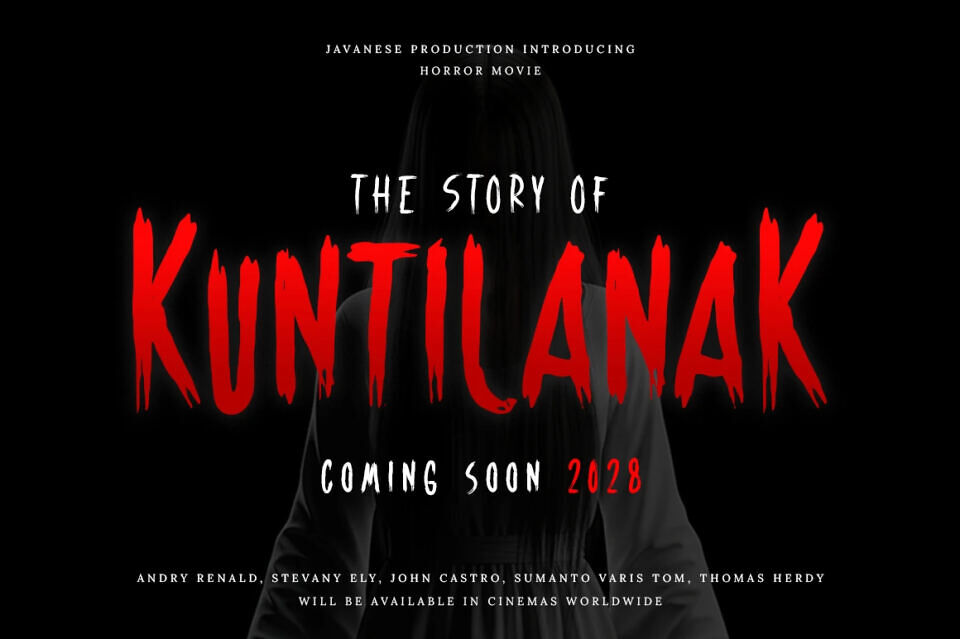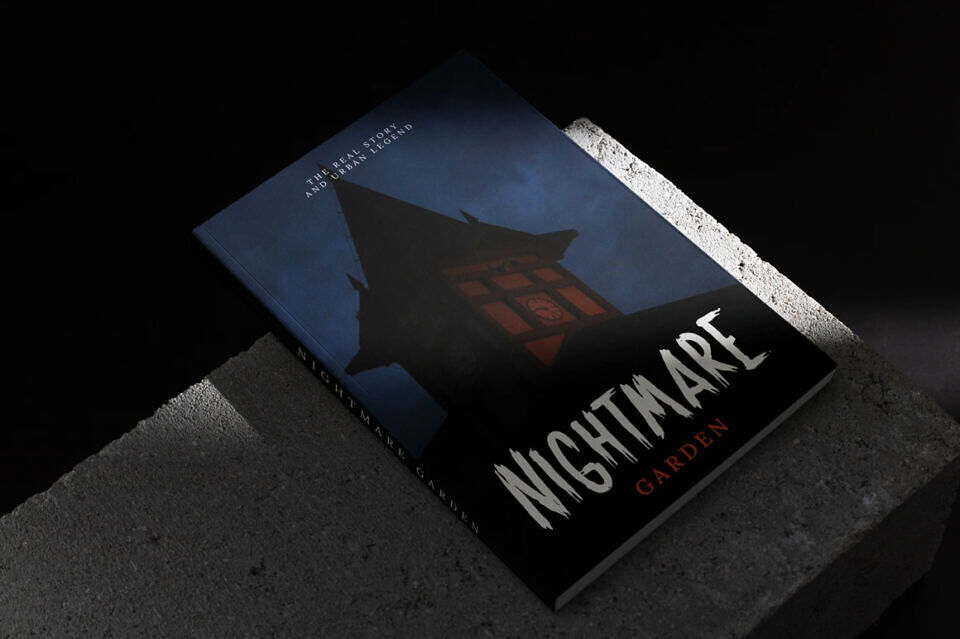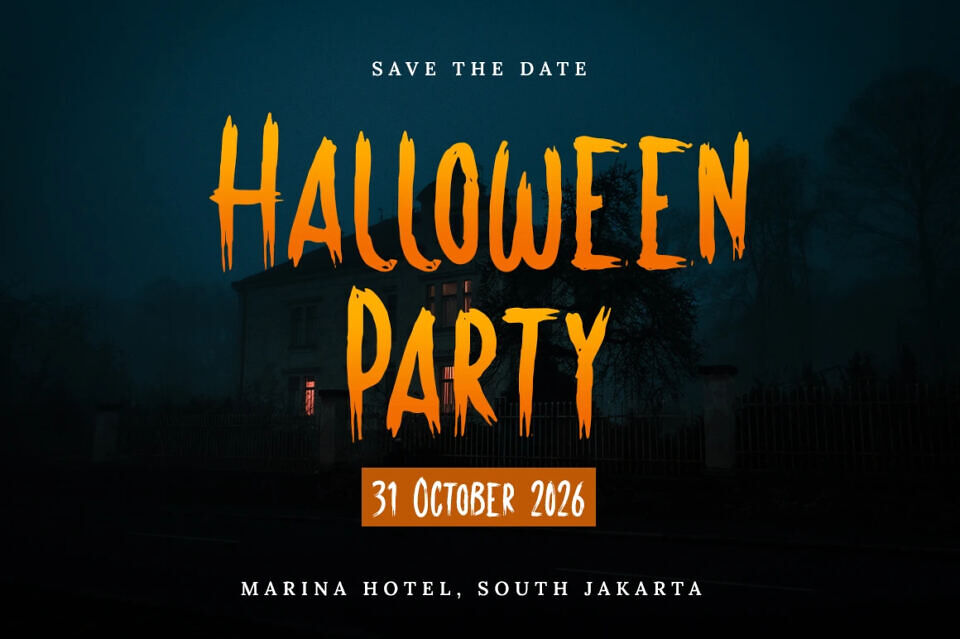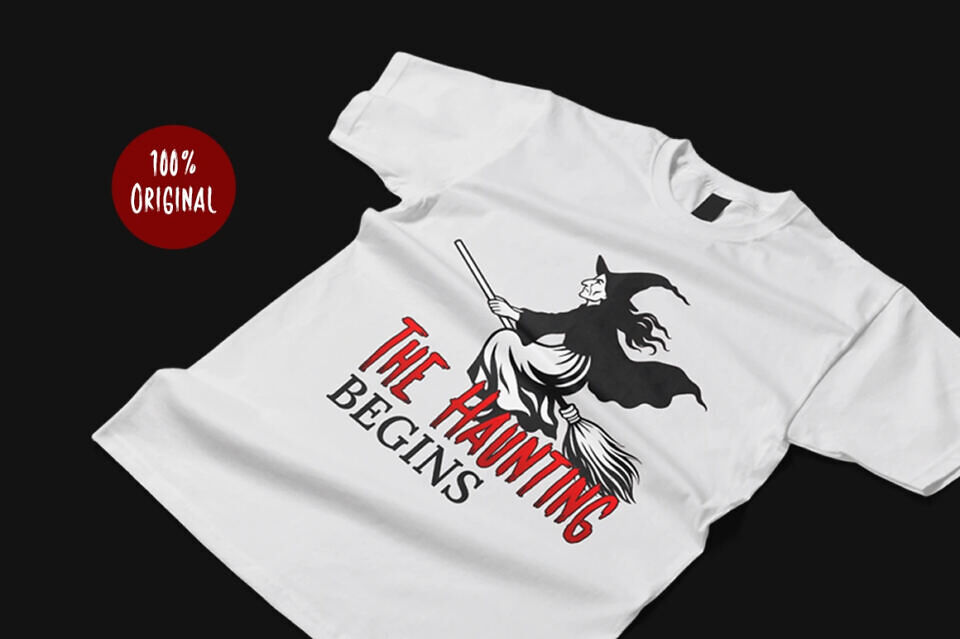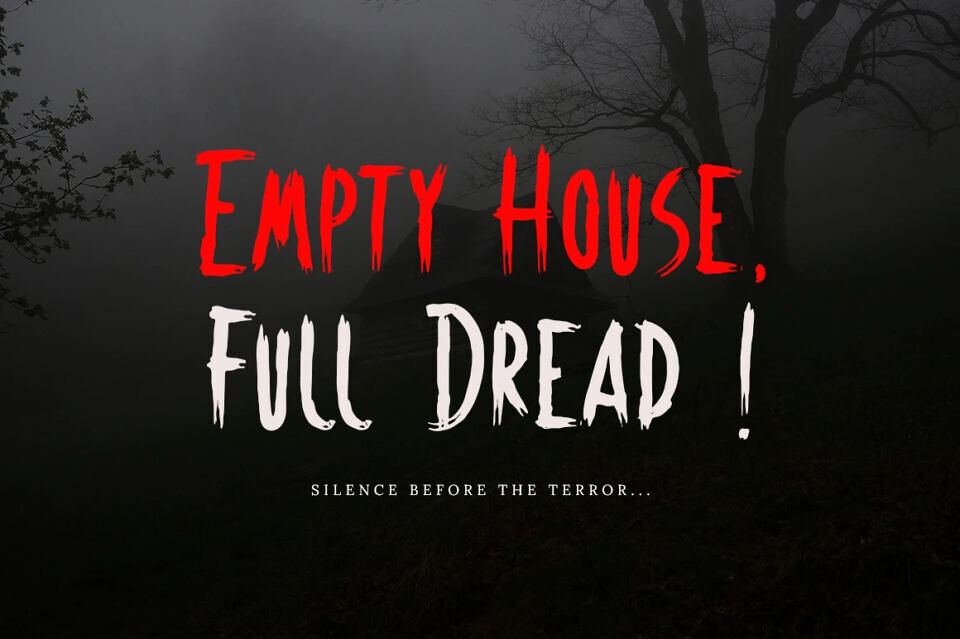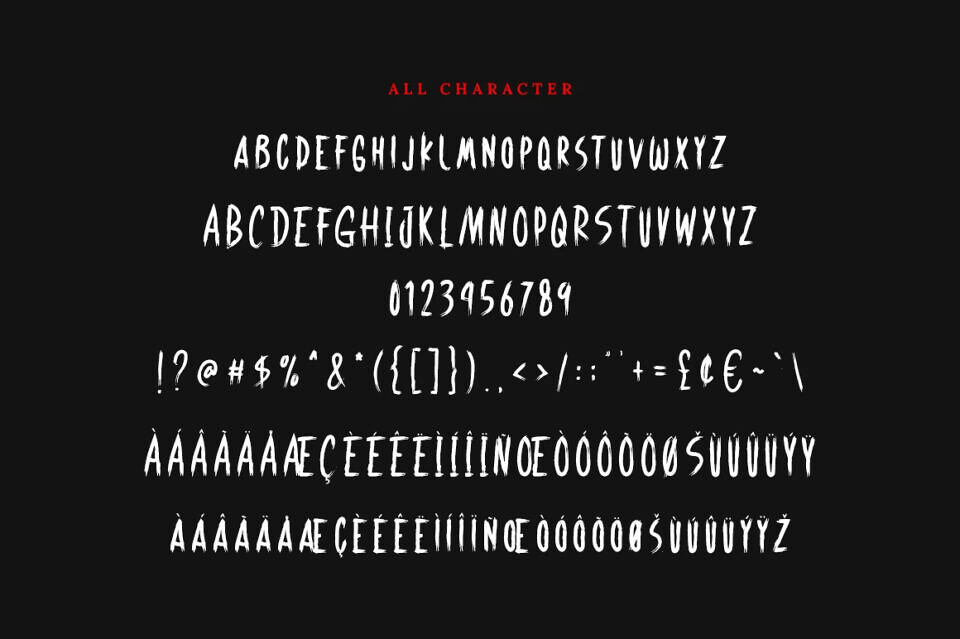
Dreadnight is a horror-themed font created with brush strokes that create shapes resembling dripping blood, in celebration of Halloween. This font is perfect for horror-themed designs, such as for social media, Halloween posts, horror movies, horror quotes, posters, invitations, horror books, t-shirt designs, and even rock and metal band logos.